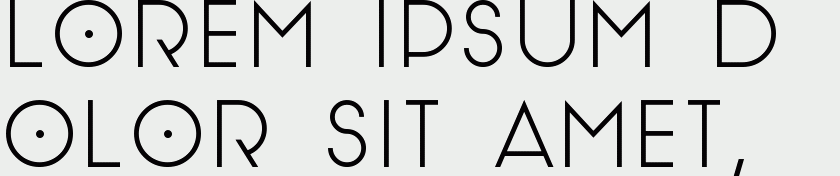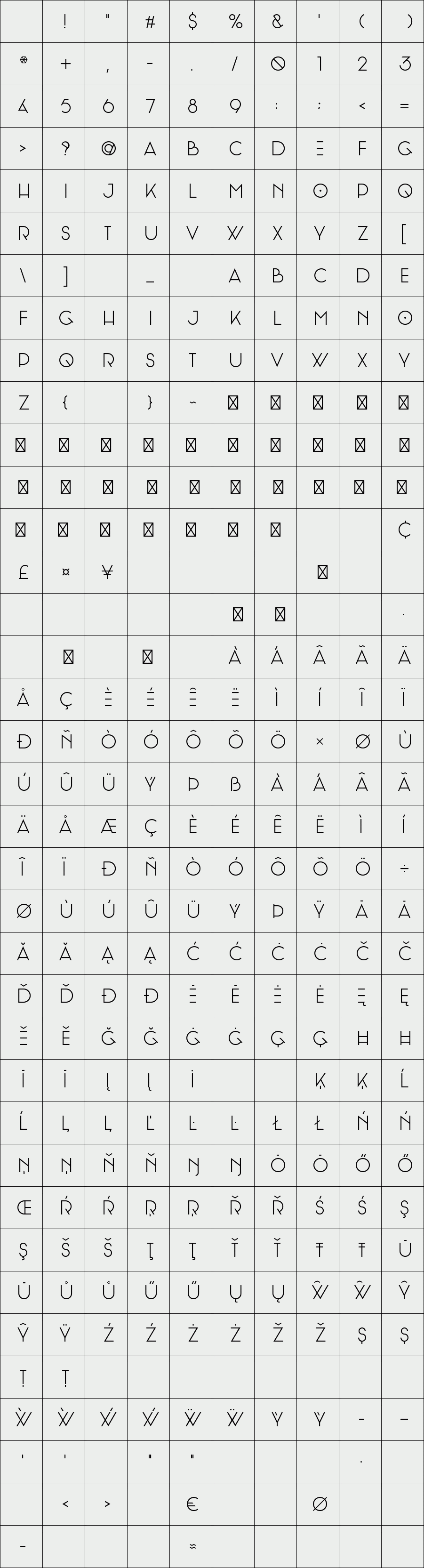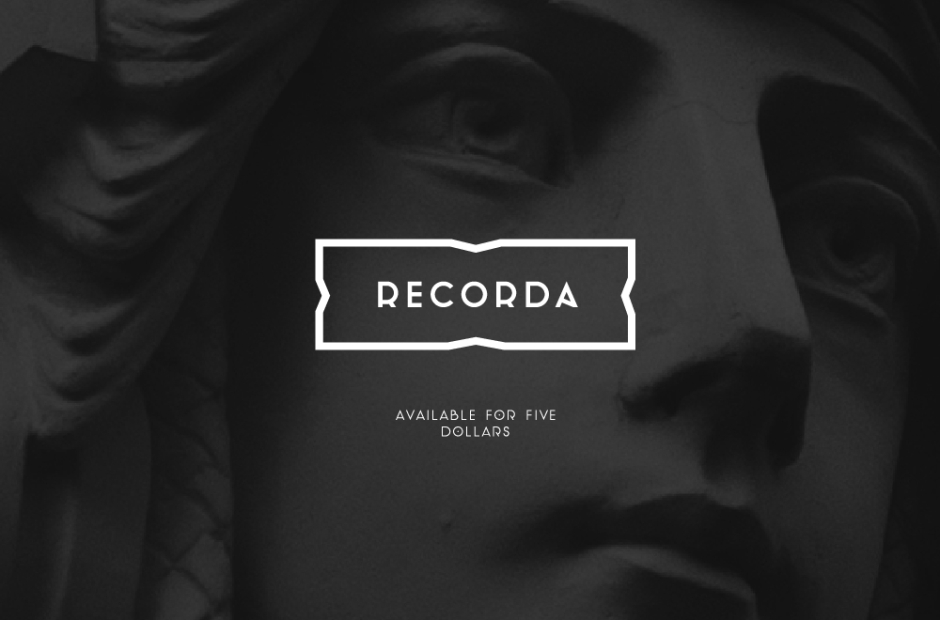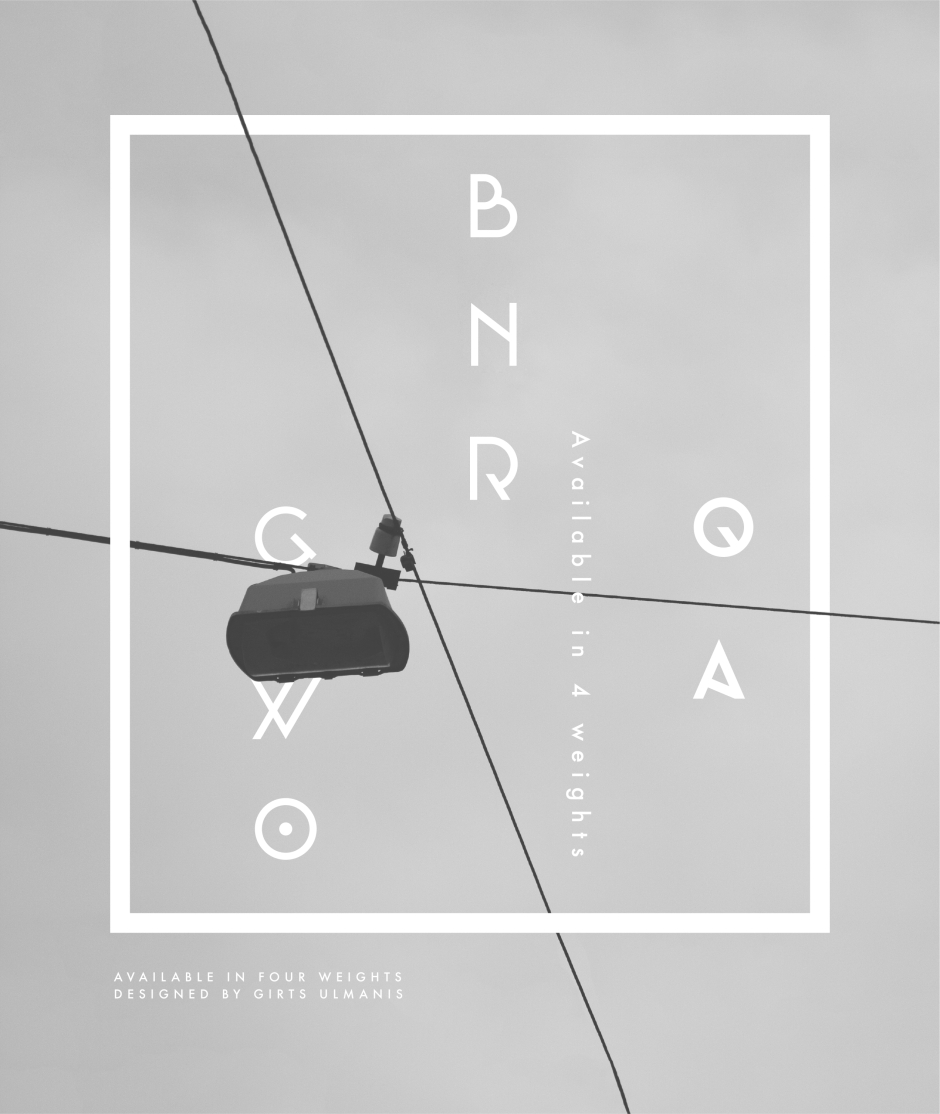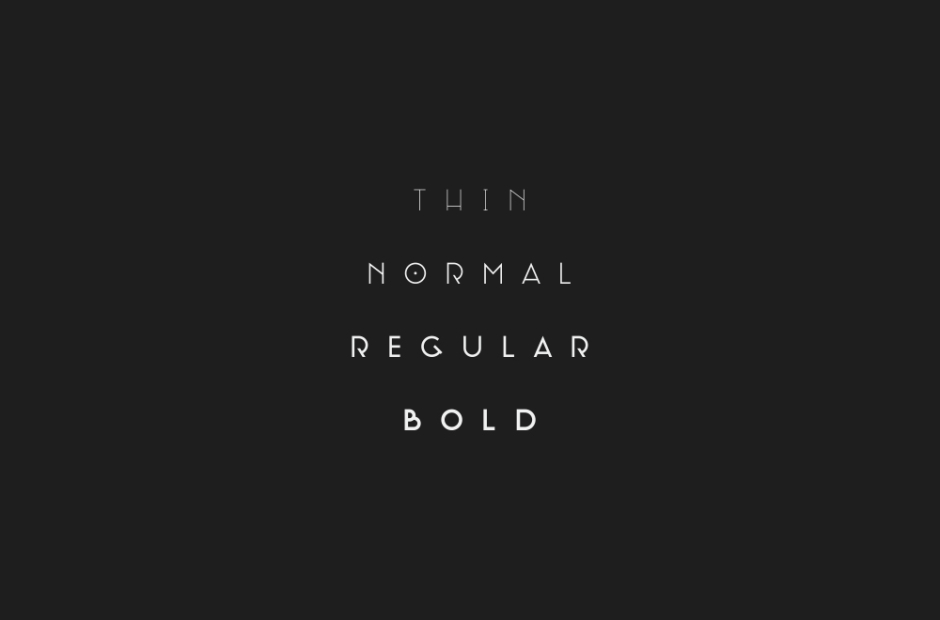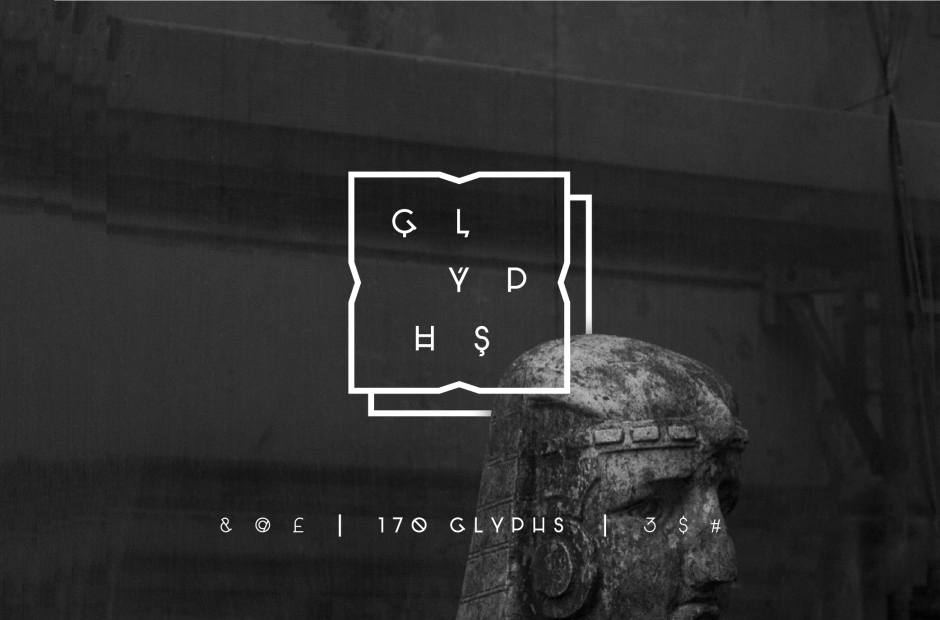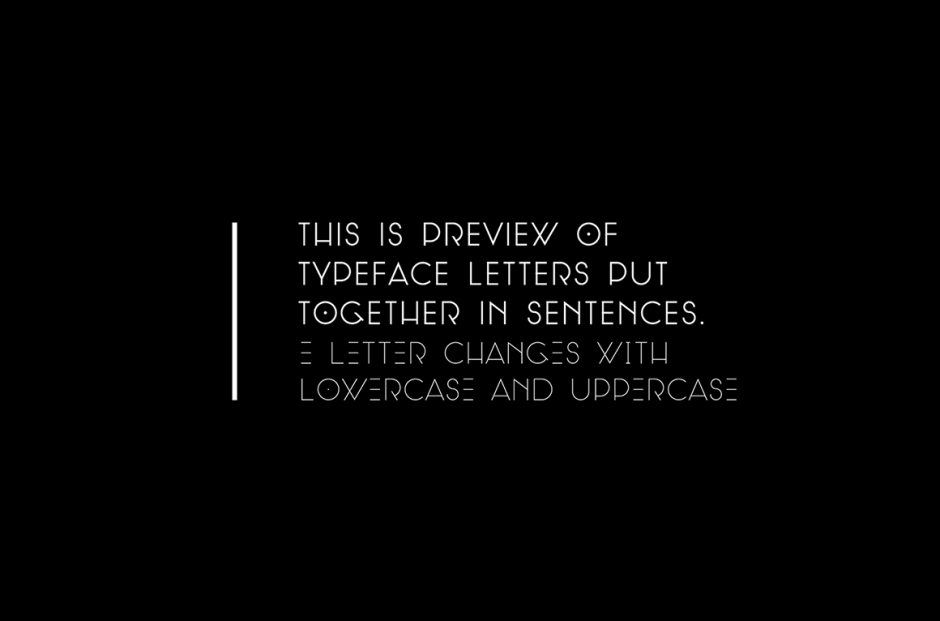
Recorda
Recorda is clean and modern, display typeface. It comes in 4 different weights and is perfect for usage in posters, logo design and headlines. Designed by Ģirts Ulmanis.
Designer: Ģirts Ulmanis